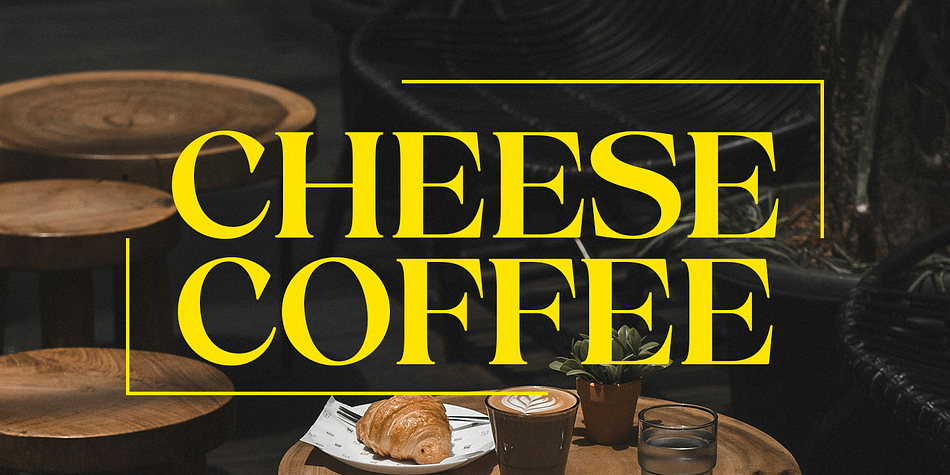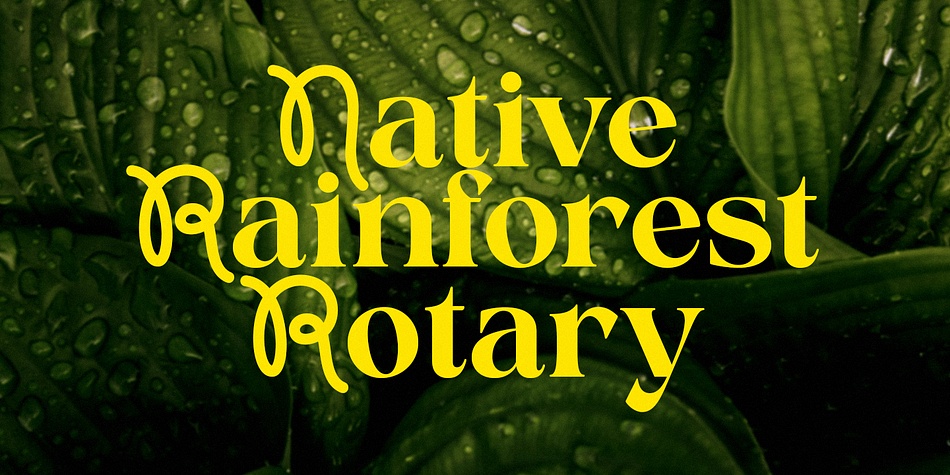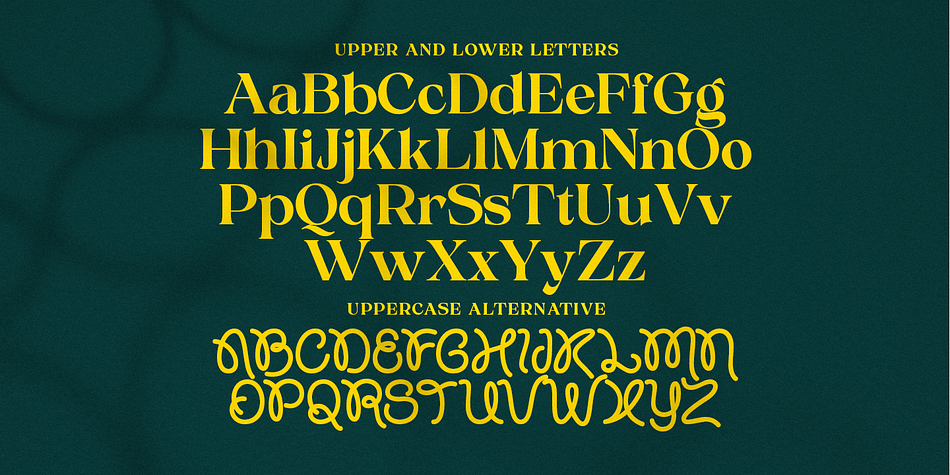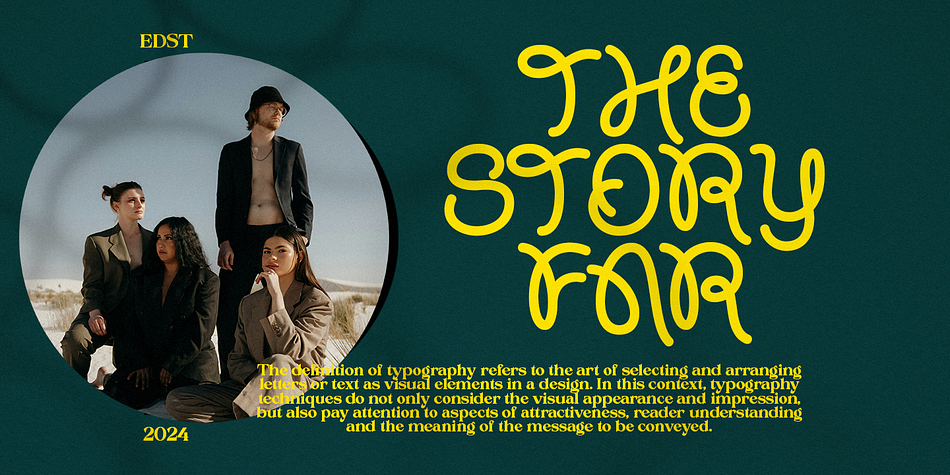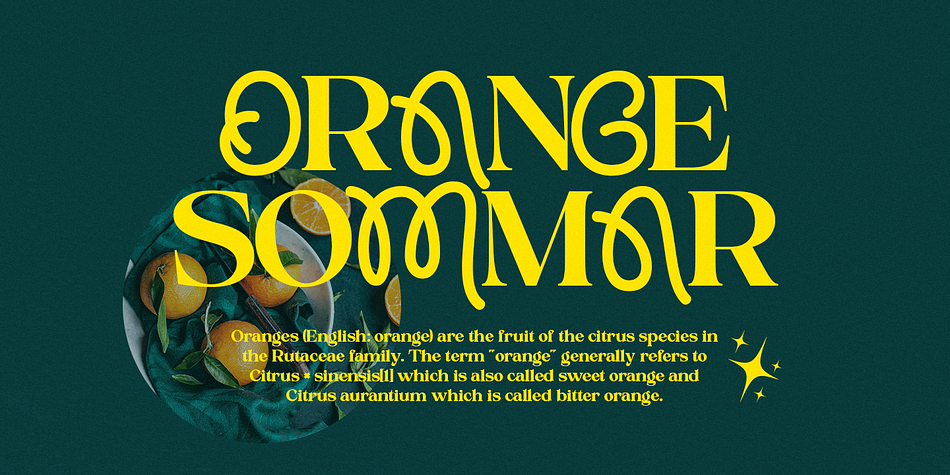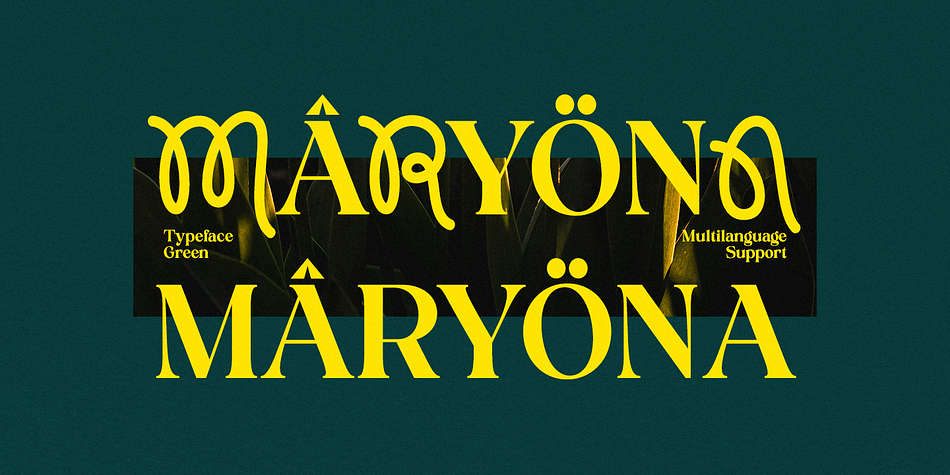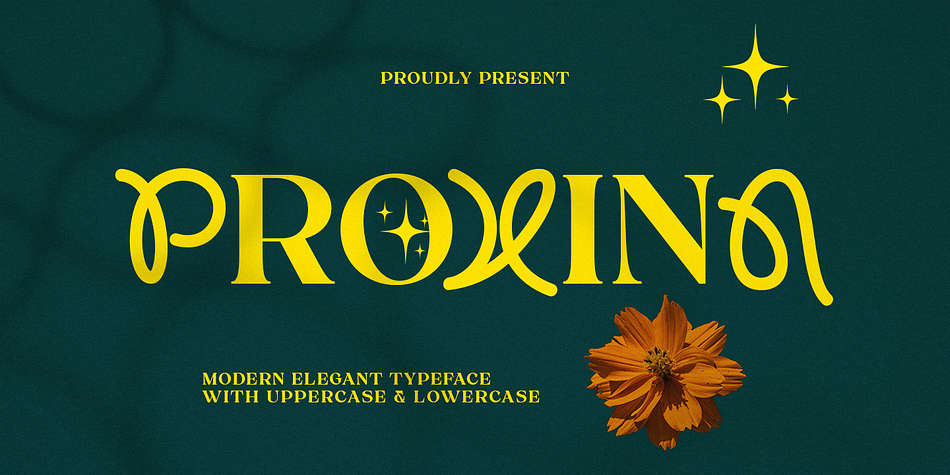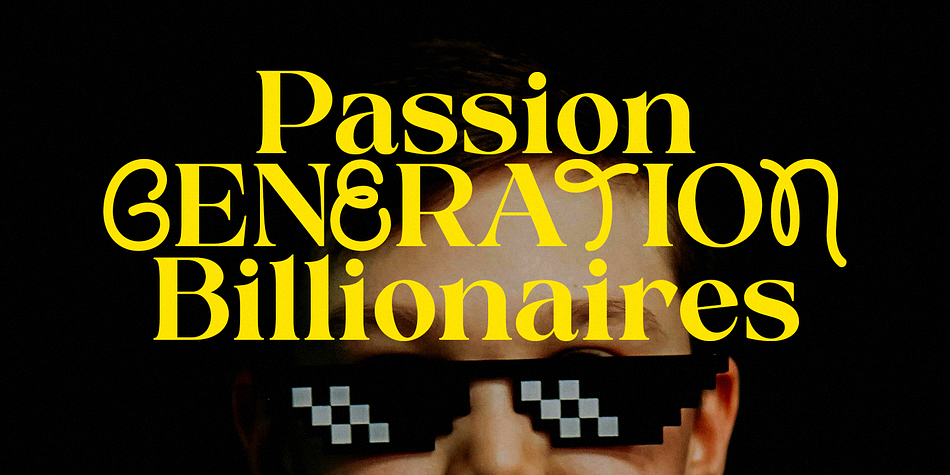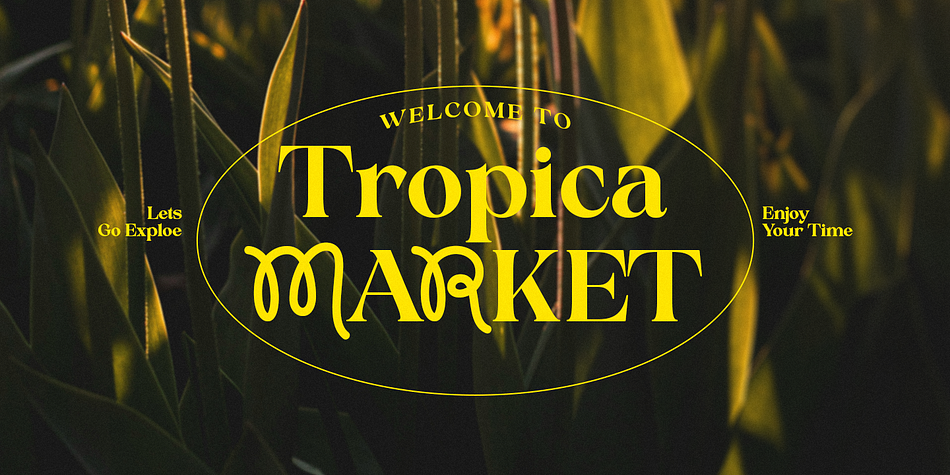
Proxina
Proxina is a display serif font family published by Pista Mova.
Proxina is an experimental combination font. includes 2 fonts that have very different styles and appearances, but make this font look unique.
This font is equipped with several features such as alternative characters, and multilingual support which makes it easier for you to design. This font is perfect for your design needs such as poster design, logo design, branding, social media design, books, magazines, etc.
FEATURE:
Number Uppercase Lowercase Punctuation and Signs Symbol style set Update : New glyphs & style sets